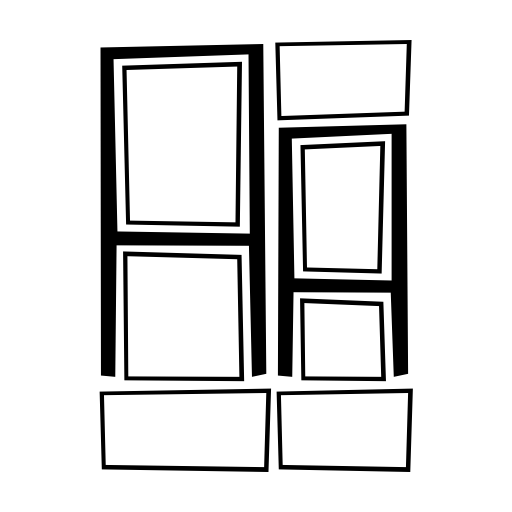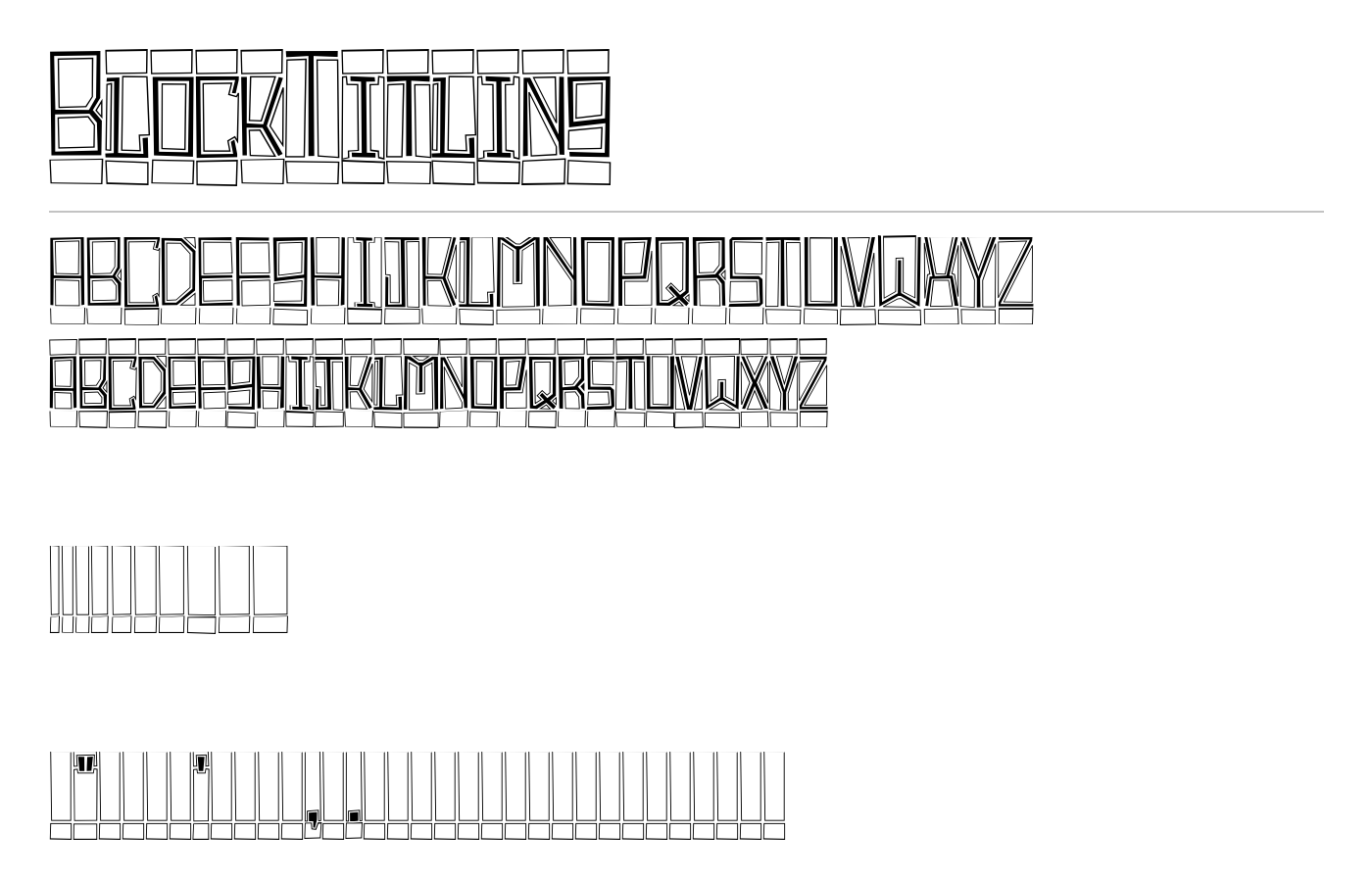
BlockTitling Standard is a distinctive, geometric sans serif font characterized by its tall, narrow letterforms enclosed in irregular rectangular outlines. Its thin, uniform strokes and playful, hand-drawn quality give it a quirky and modern vibe, making it ideal for eye-catching headlines, posters, and creative branding that seeks a unique, informal appeal. This font works best in display settings where its artistic and unconventional shapes can stand out and add personality.
BlockTitling Standard Font